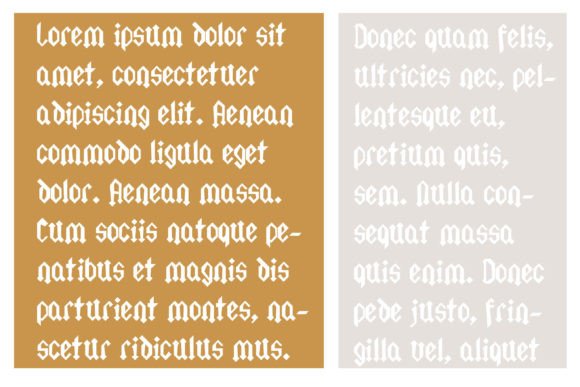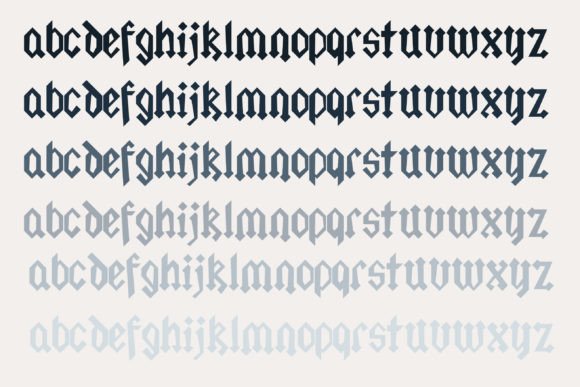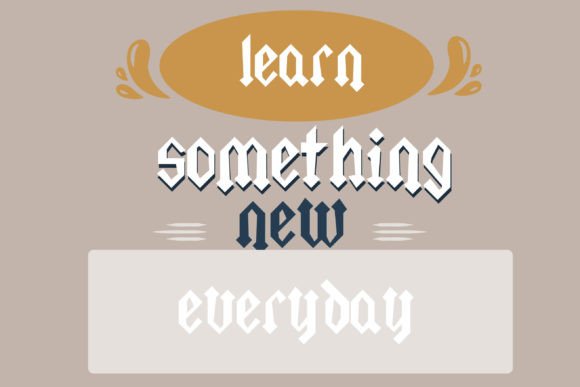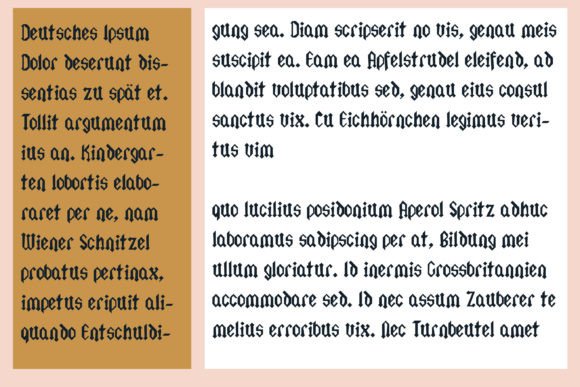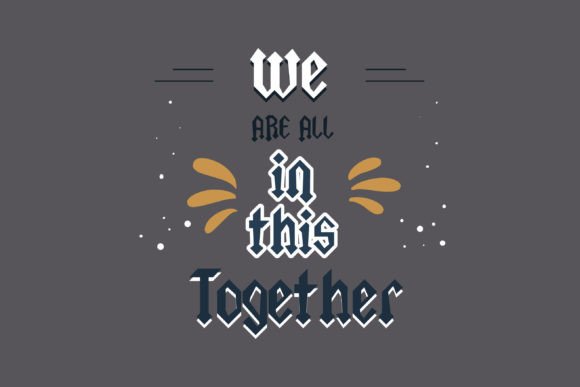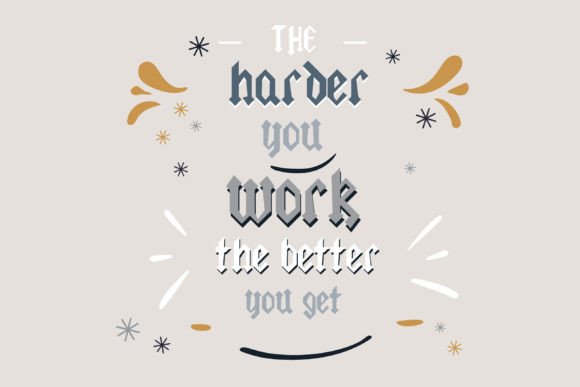
Getting Creative with Rockjam Font
Have you ever stared at a blank canvas, waiting for inspiration to strike? It’s a familiar feeling for designers, but it’s also a moment of opportunity. For those who crave a classic, old-school look with a twist, the Rockjam Font is a game-changer. This unique blackletter font combines the nostalgia of a bygone era with a creative flair that’s sure to elevate any project.
Whether you’re working on a free download for a client or a high-quality design resource for your portfolio, the Rockjam Font is a valuable addition to any designer’s toolkit. Its transparent background and high-quality design make it perfect for use on logos, posters, and other visual projects where a bold, eye-catching font is needed.
With the Rockjam Font, the possibilities are endless, and we’re excited to dive in and explore its many uses in the world of design.
Key Features of Rockjam Font
- Rockjam Font is designed to be highly legible, with a clear and bold typography that’s perfect for headings and titles.
- Features a unique blend of modern and vintage elements, making it a great choice for designers looking for a distinctive font.
Honest Review: Rockjam Font
I recently stumbled upon the Rockjam Font while searching for a design resource for a creative project. The font caught my eye due to its unique and energetic vibe, making it perfect for music-related projects.
- ✨ Unique and bold design that stands out
- ✨ Suitable for various creative projects, including music, art, and more
- ⚠️ Limited font styles and variations available
- ⚠️ May not be suitable for formal or professional projects
Overall, I’m impressed with the Rockjam Font’s design and versatility. It’s a great addition to any designer’s toolkit, especially for those working on music-related projects. While it may have some limitations, the font’s unique design and high-quality files make it a worthwhile download. If you’re looking for a fun and energetic font for your next creative project, the Rockjam Font is definitely worth considering.
The Rockjam Font is commonly used in music-related designs, such as posters, flyers, and business cards. It’s also used in creative projects, such as graphic novels, comics, and illustrations.